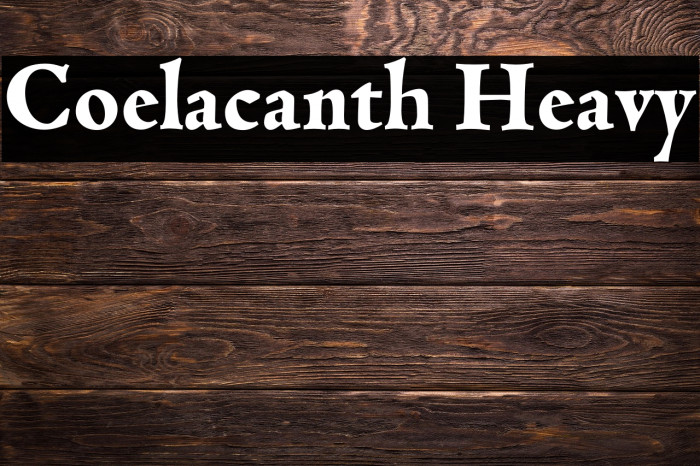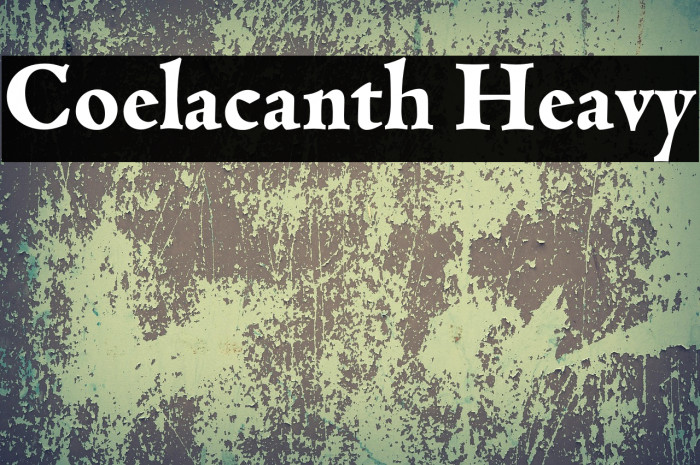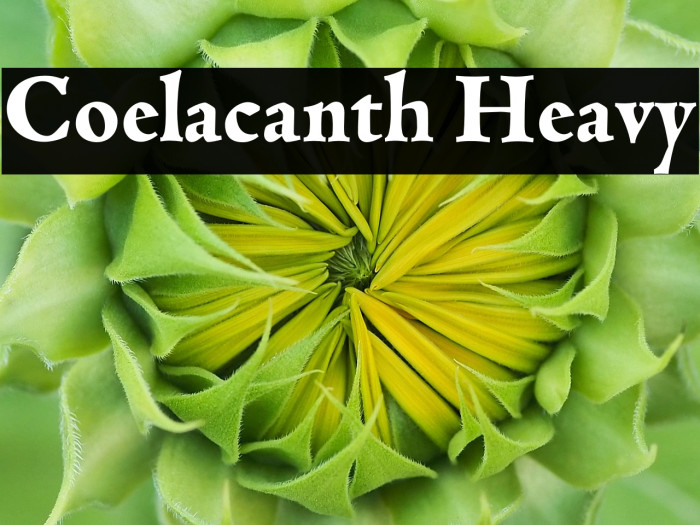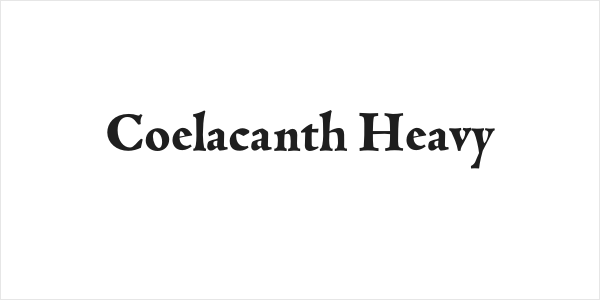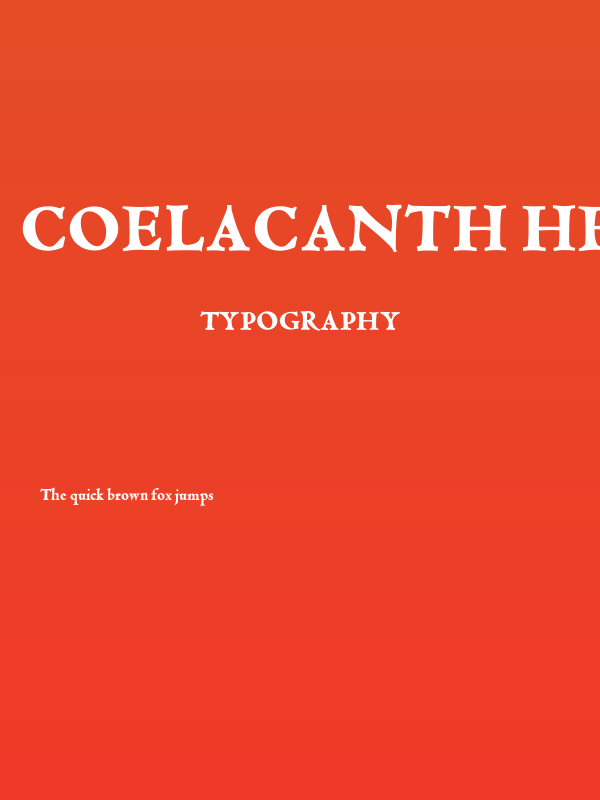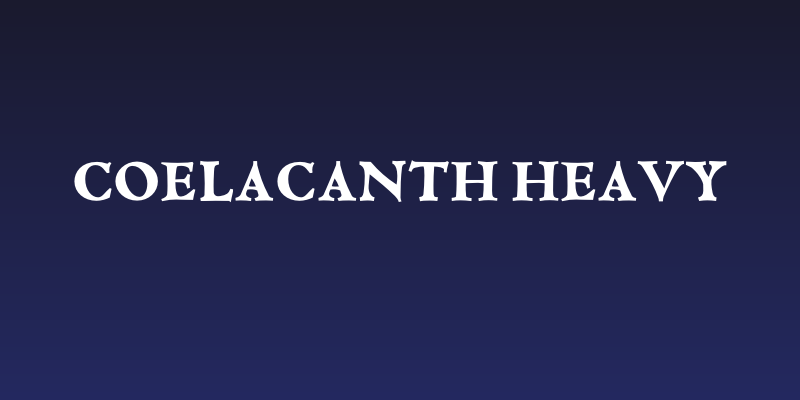
Coelacanth Heavy Font
Coelacanth Heavy Description
This font features a bold and dramatic style with high contrast between thick and thin strokes, giving it a dynamic and eye-catching appearance. The serifs are pronounced and slightly curved, adding a touch of elegance and sophistication. The uppercase letters are strong and commanding, while the lowercase letters maintain a consistent flow with unique character shapes. The numerals are distinct and easily readable, and the special characters complement the overall design. This font's boldness and unique style make it suitable for impactful and creative projects.
Proposed ProjectsIdeal for branding, headlines, posters, and any design requiring a strong visual impact.